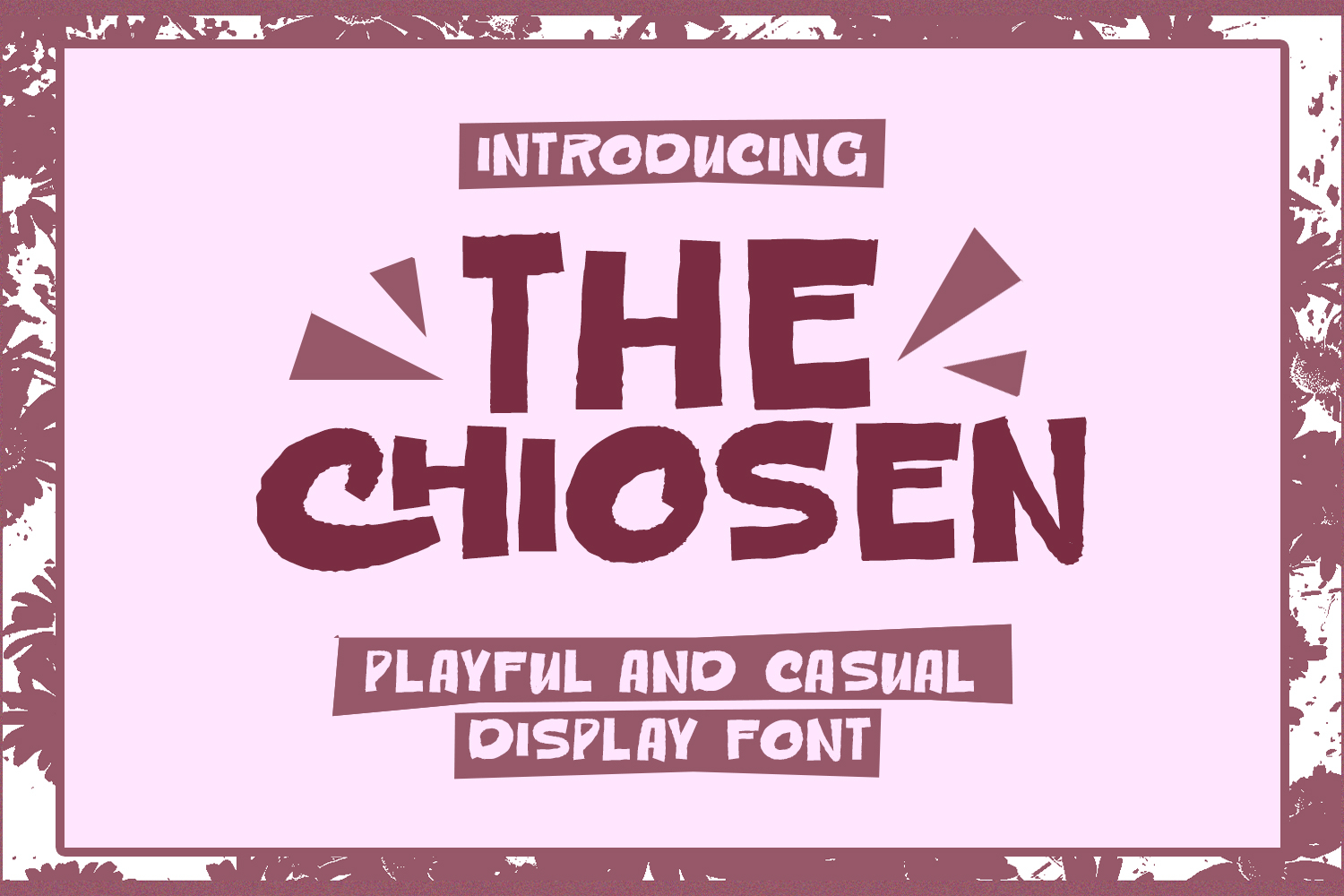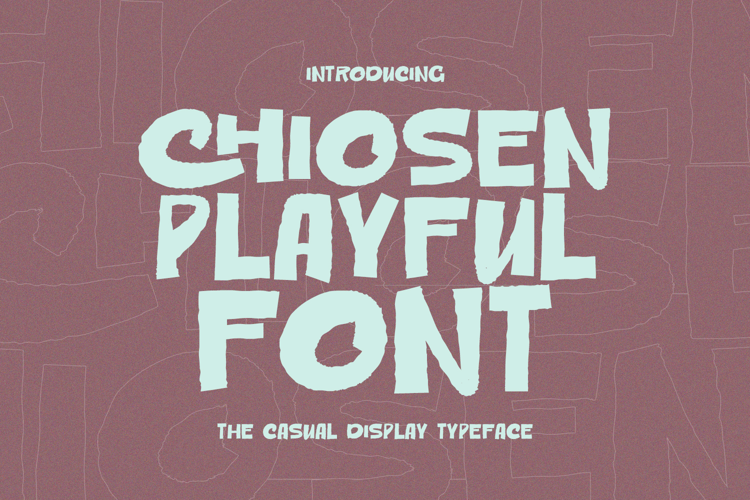
Chiosen Playful Casual Display Font.
Chiosen is a playful casual display brush font. With bold stroke, fun character with a bit of ligatures. To give you an extra creative work. Chiosen font support multilingual more than 100+ language. This font is good for logo design, Social media, Movie Titles, Books Titles, a short text even a long text letter and good for your secondary text font with sans or serif. Make a stunning work with Chiosen font.